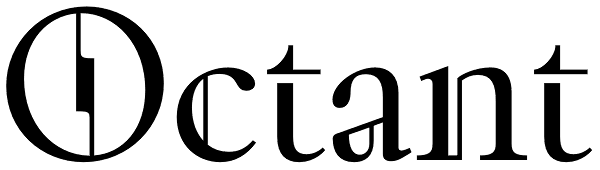
Octant
Octant is an original display typeface drawing inspiration from Victorian-age steel and brass engineering, as well as from blackletter typography. Despite its many innovative departures from traditional letter architecture at the detail level, its...
Octant